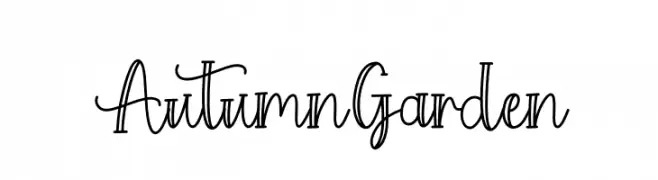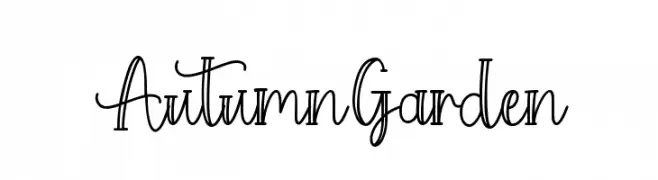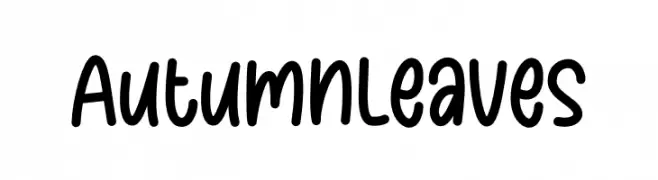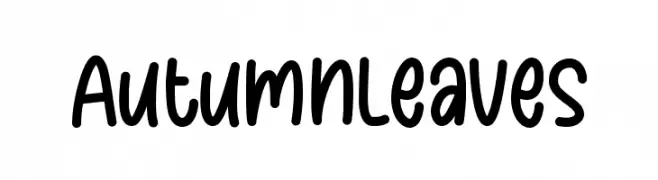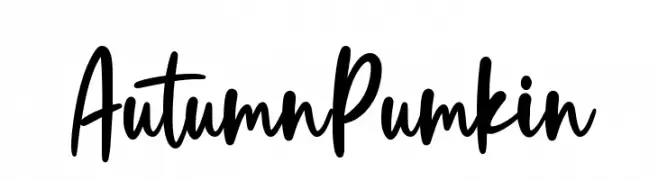
A whimsical, handwritten font with playful curves and artistic flair.
A playful, handwritten-style font with elegant loops and consistent strokes.
A playful, hand-drawn font with a casual and friendly vibe.
A playful and casual handwritten font with fluid strokes and a friendly appearance.
A playful, handwritten font with smooth, flowing lines and a casual style.
A playful, bold handwritten font with rounded, consistent strokes.
A playful, bold handwritten font with rounded edges and a casual style.
A playful, hand-drawn font with rounded, bold characters and a whimsical style.
A playful, whimsical script font with flowing, interconnected letters.
A playful, handwritten font with fluid strokes and a casual, energetic style.